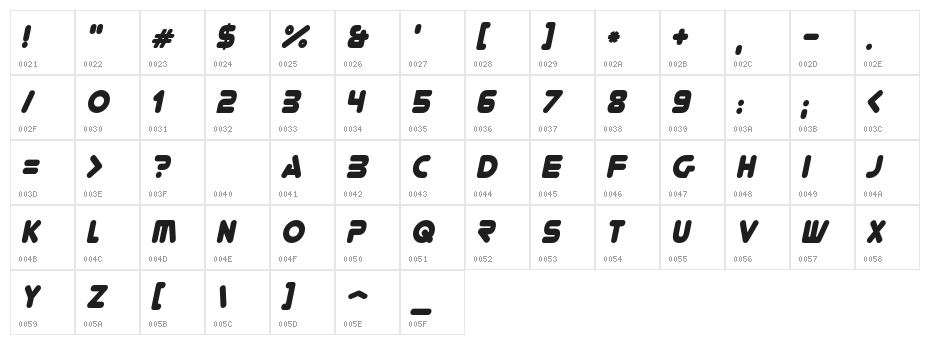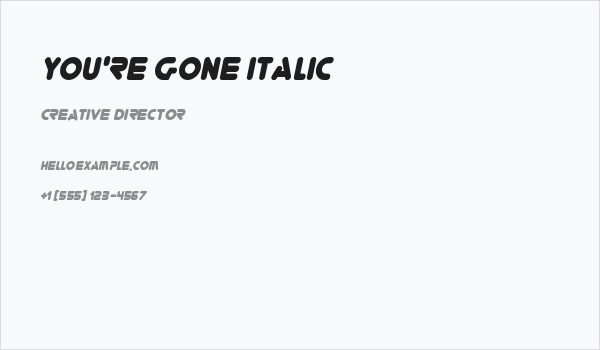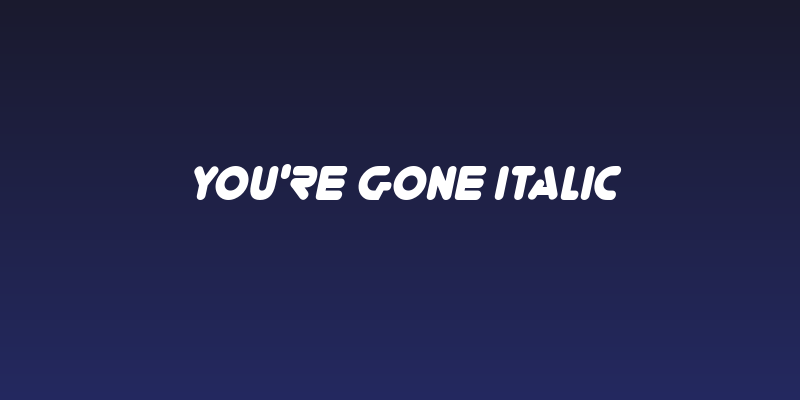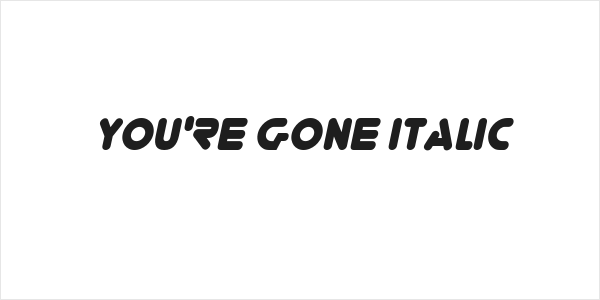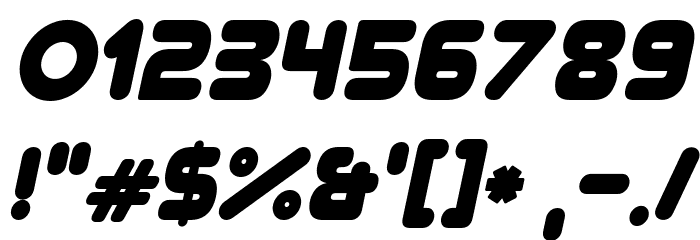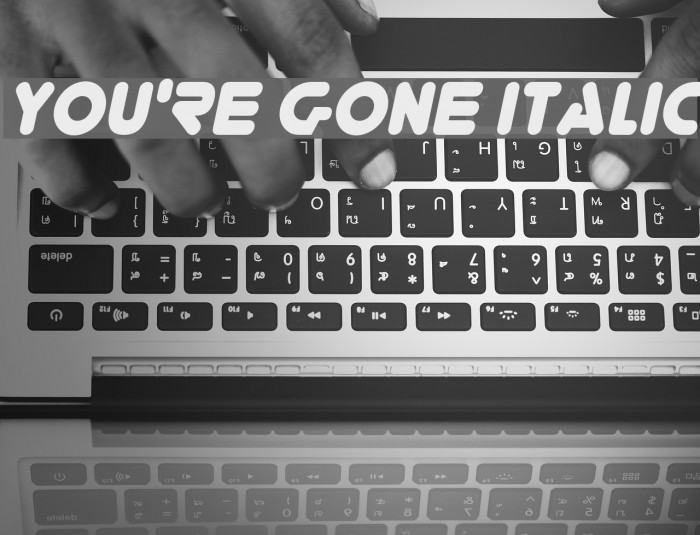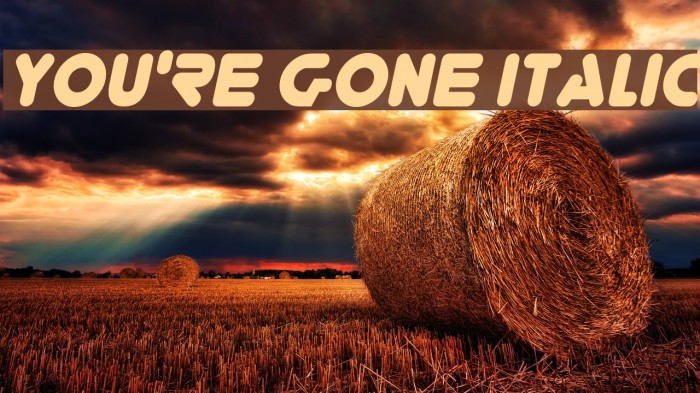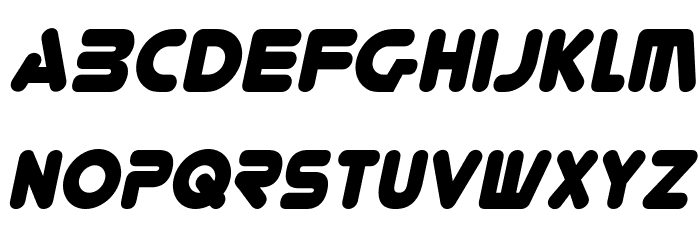
You're Gone Italic Font
You're Gone Italic Description
This font features a bold, rounded style with a distinctly modern and futuristic feel. The characters are italicized, giving a sense of motion and dynamism. Each letter and number is crafted with thick strokes and smooth curves, creating a cohesive and visually striking appearance. The font's design is consistent across both uppercase and lowercase letters, as well as numbers and special characters. Its boldness and unique style make it stand out, while the rounded edges soften its overall look, making it approachable and friendly.
| Use Case | Logos, Headlines, Posters |
| Proposed Projects | Ideal for branding, advertising, and digital media projects that require a modern and dynamic look. |